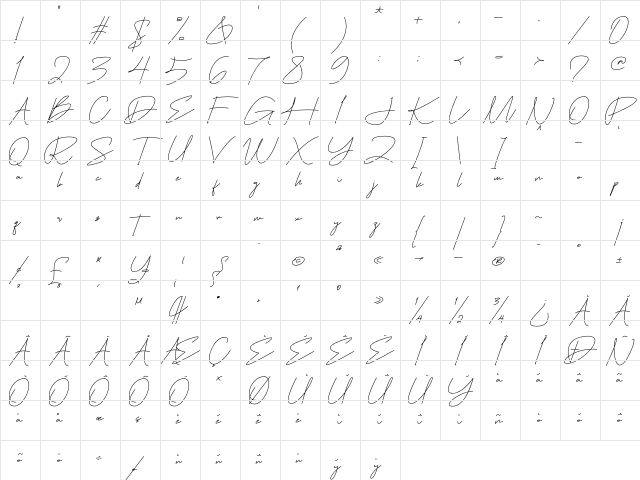
Easternation Regular Free Font
Easternation Regular
Designer: Jada Akbal
Design Context for Easternation
Easternation is a composed and adaptable typeface that performs quietly and consistently across a wide range of design contexts.